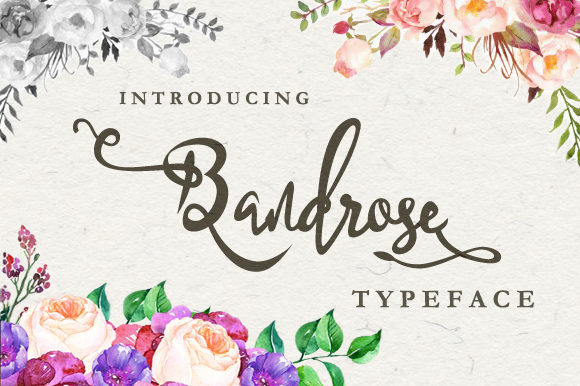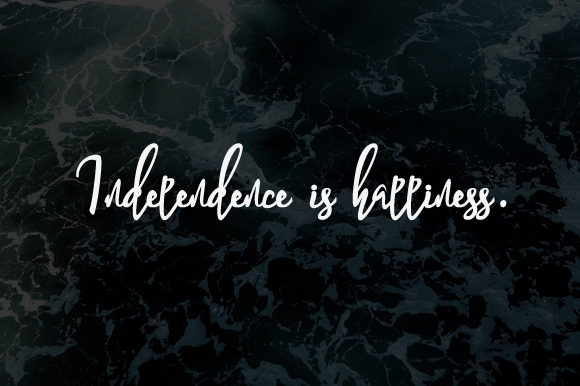
Bandrose Family Font
About Bandrose Family Font
The Bandrose is a beautiful typeface which was designed with the intention to bring people a warm feeling. It was inspired by handwriting and carvings which makes this family so unique.